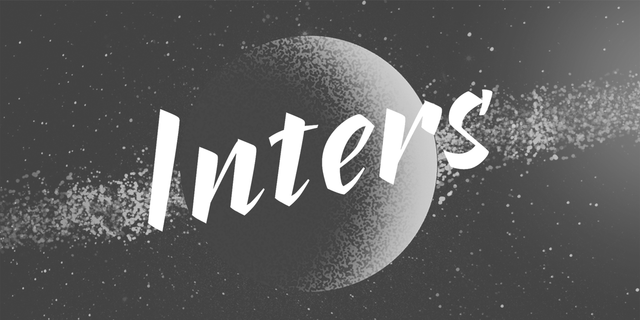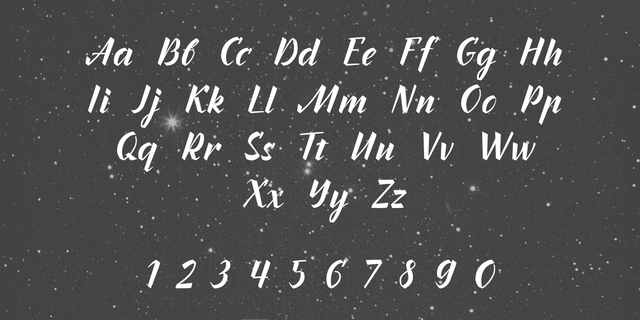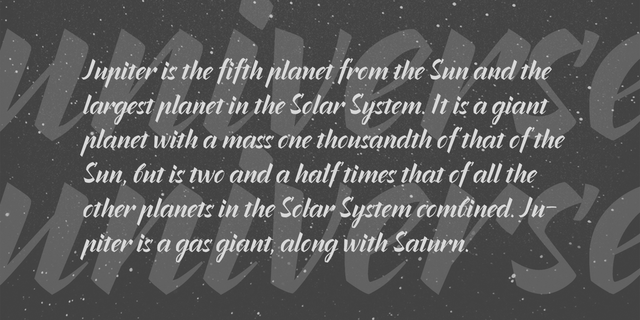
TT Inters (1 font)
Inters is a very strict and rhythmic font, but at the same time very sensual and emotional. Inters — a real typeface for the dreamers. It is very well suited for each design. You can use Inters font for a flower shop or a postcards. But it is also perfect for decoration about the future, interiors or kids products. Font designed by Ivan Smooth and released by the TypeType studio in 2015. Typeface designed by Ivan Gladkikh and released by TypeType studio in 2015.
Associations for font family TT IntersTypeface personality and character:
daring, rhythmic, emotional, agile, interesting, vigorous, distinctive, alive, dashing, self-assured, temperamental, brave, dynamic, original, cutting, festive, beautiful, orderly, musical, brilliant, artistic, dreamy, glad, crisp, silver, sharp, resolute, elite, expensive, masterful, solid, high-quality, convincing, voiced, proud, fast, manly, expressive, ambitious, notable, splashy, creative, expressing, quick, freewheeling
flowers, gifts, children's book, adventures, dance, music, restaurant, tattoo, retail, attraction, entertainment, candies, dessert, cafe, cake, celebration, New Year, interior, sci-fi, silver, exhibition, cinema, space, clothes, decoration, coffee, sea, trophy, reward, pizza, Superhero, graphics, illustration Typeface exhibits stylistic traits: